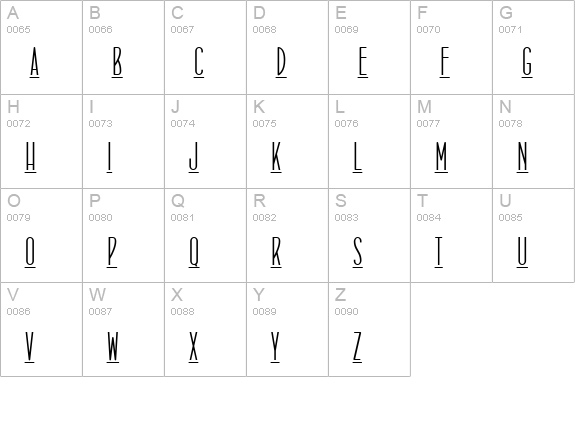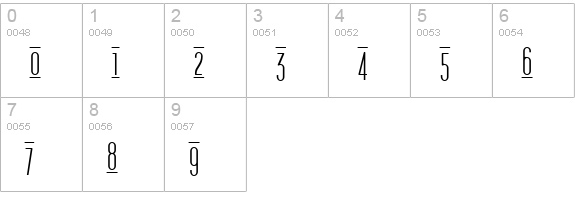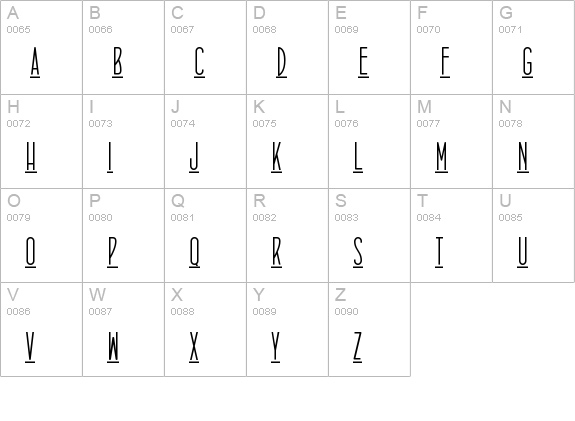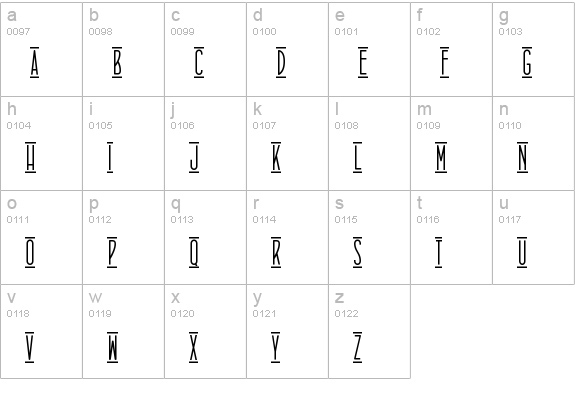
ConcursoItalian BTN Lined Cn Font Details
ConcursoItalian BTN Lined Cn font is a versatile and stylish typeface that exudes elegance and sophistication. With its clean lines and modern aesthetic, this font is perfect for a variety of design projects, from branding to editorial design. The sleek, condensed style of the letters gives a contemporary and sleek look to any text. What makes ConcursoItalian BTN Lined Cn font even more appealing is that it is available for free download at FontsMarket.com. This means that you can easily access this stunning font and use it in your projects without any cost. Whether you are a graphic designer, a blogger, or a student working on a project, this font is a fantastic choice to elevate your work and make it stand out. Embrace the beauty and sophistication of ConcursoItalian BTN Lined Cn font in your designs today. Download it for free at FontsMarket.com and let your creativity shine with this exquisite typeface.